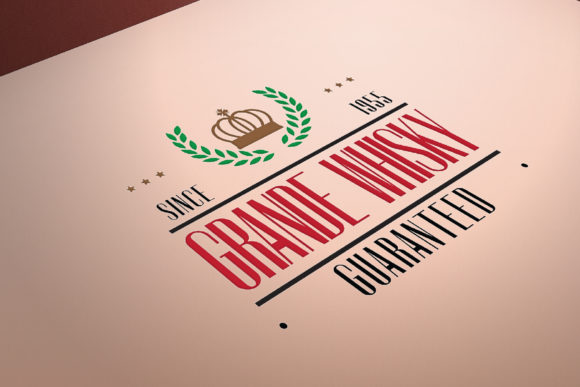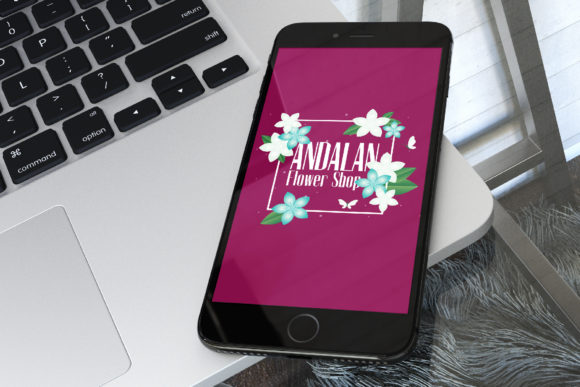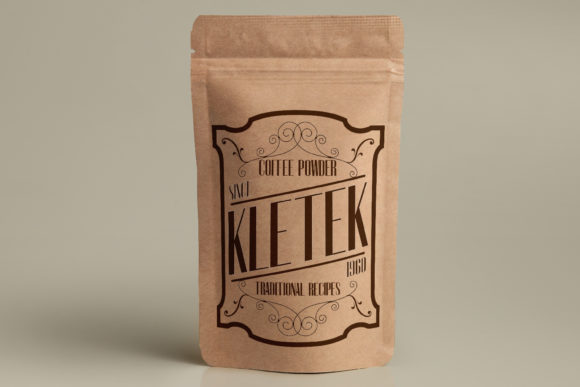
Introduction to Luzy Font
Have you ever been stuck in a design rut, struggling to find the perfect font to bring your creative project to life? It’s a common problem many designers face, but what if I told you there’s a solution that’s both versatile and free? Enter the Luzy Font, a stunning sans serif font that’s sure to elevate your designs and leave a lasting impression.
Imagine a blank canvas with a transparent background, waiting for the perfect brushstroke. That’s exactly what the Luzy Font offers – a high-quality design resource that’s just begging to be used. With its clean lines and minimalist aesthetic, this font is the perfect addition to any creative project, from logos to brochures and beyond.
Key Features of Luzy Font
- Transparent background: The Luzy Font allows for seamless integration into any design project with its transparent background, making it ideal for creative projects.
- High-quality design: This font is crafted with precision to deliver high-quality results, suitable for a wide range of design applications.
- High-resolution design: The Luzy Font is designed at a high resolution of 300 DPI, making it suitable for print and digital applications.
- Unique style: The font’s unique style and aesthetic make it an excellent choice for designers looking to add a touch of elegance and sophistication to their creative projects.
Honest Review: Luzy Font
I recently stumbled upon the Luzy Font, and I must say it’s a lovely addition to any creative project. The font is designed to be clean and elegant, making it perfect for use on a transparent background or as a standalone element in your design.
- High-quality design: The Luzy Font is designed with precision, ensuring that it looks great on any device or platform.
- Limited character set: The Luzy Font has a limited character set, which may not be suitable for extensive text-based projects.
- No bold or italic variations: While the font is clean and elegant, it lacks bold and italic variations, which may limit its use in certain contexts.
Overall, the Luzy Font is a great addition to any design resource. Its clean design and free download make it an excellent choice for creative projects. While it may have some limitations, it’s still a high-quality font that’s definitely worth checking out.
Tips for Getting the Most Out of Luzy Font
Luzy Font is a high-quality design resource that can be used in a variety of creative projects. Here are some tips for getting the most out of it:
- Use Luzy Font on a transparent background to add depth and dimension to your designs
- Combine Luzy Font with other design elements to create a unique and eye-catching look
- Experiment with different font sizes and styles to add visual interest to your designs
Common Use Cases for Luzy Font
Luzy Font is a versatile design resource that can be used in a variety of creative projects, including: